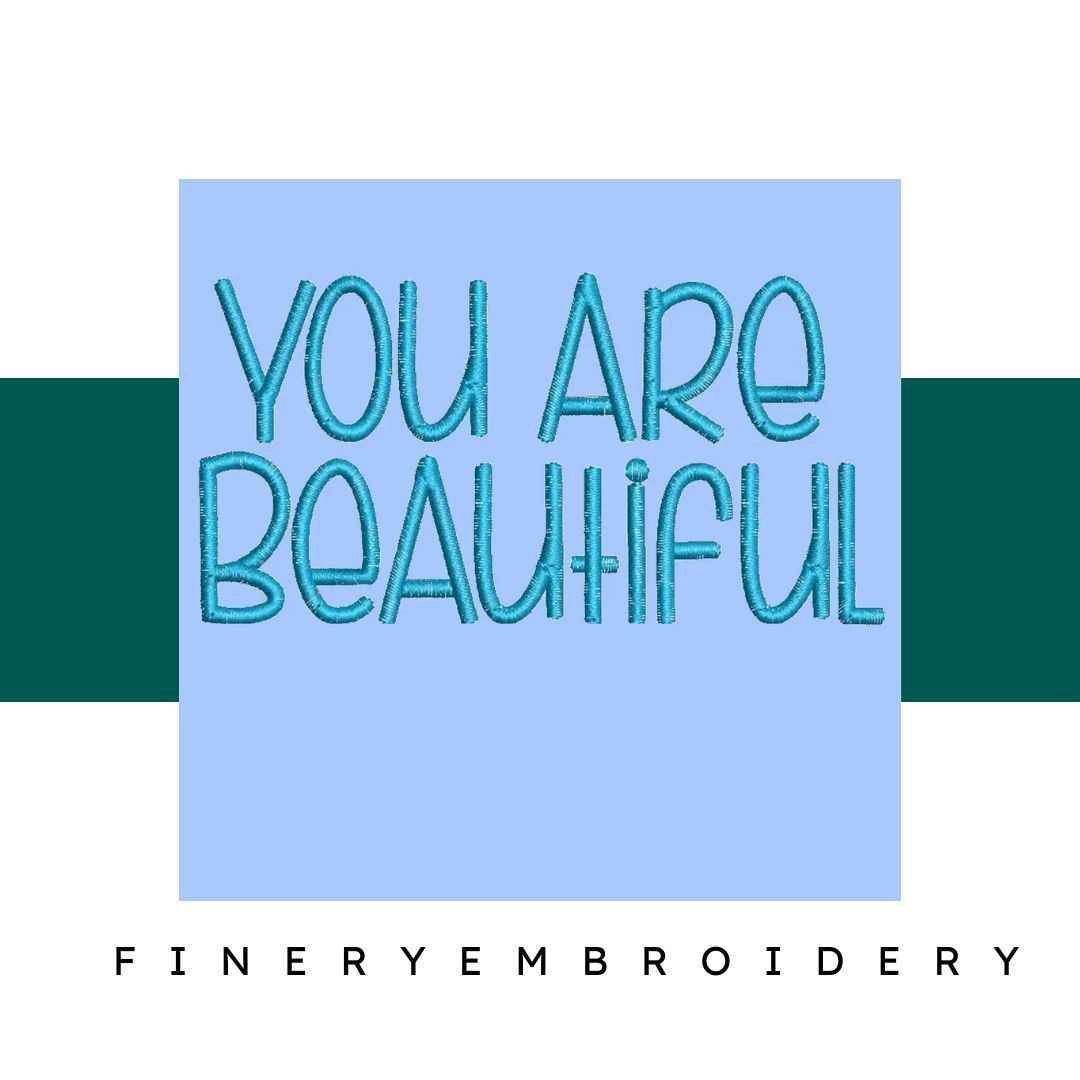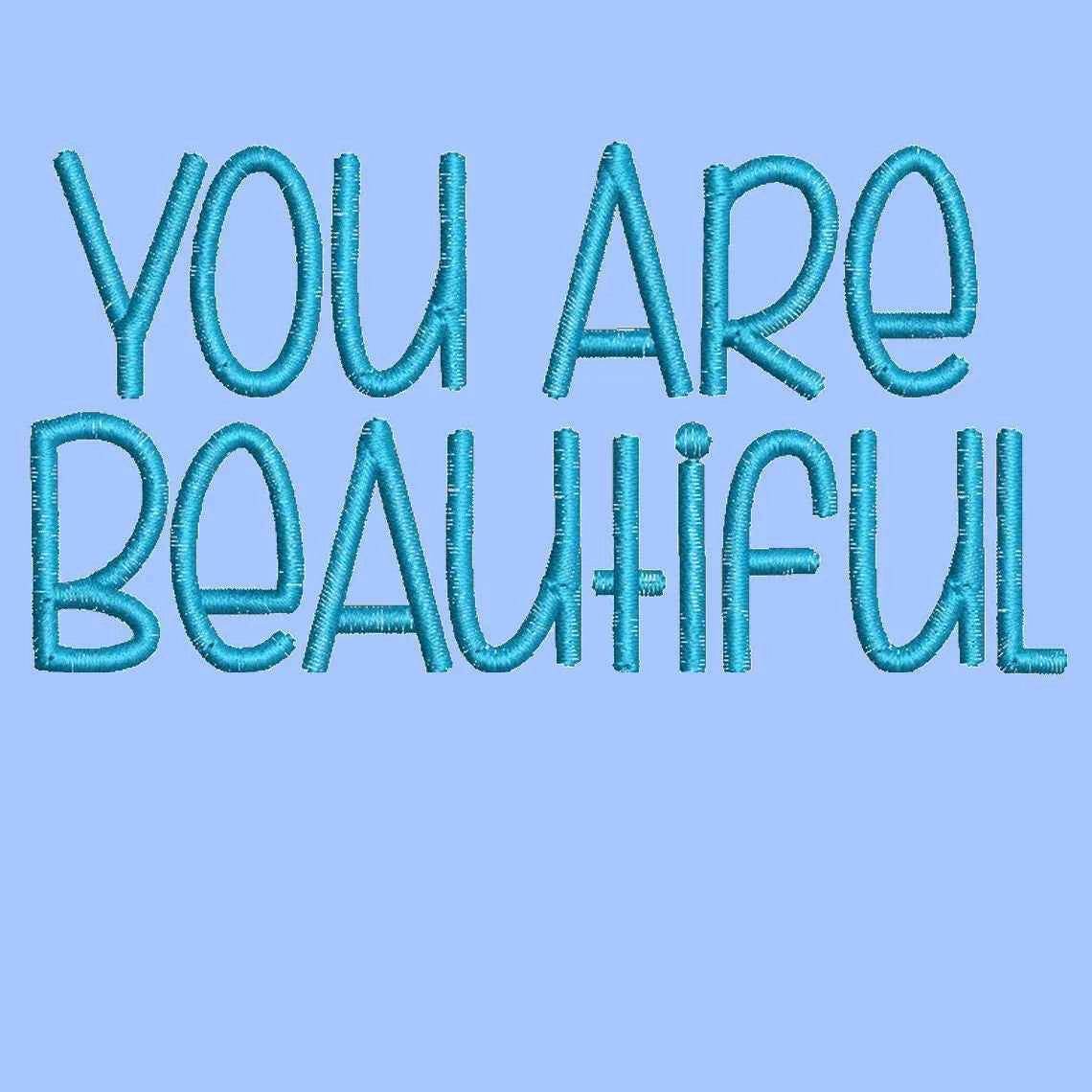
You Are Beautiful Embroidery alphabet Font Set
Transform your creations with elegance using the You Are Beautiful Embroidery Alphabet Font Set – where every letter tells a story of beauty!
Introducing the You Are Beautiful Embroidery Alphabet Font Set! This exquisite collection is designed to elevate your embroidery projects, ensuring that each letter showcases a sophisticated flair. Whether you're personalizing garments, enhancing home decor, or crafting unique gifts, this font set is essential for every embroidery enthusiast looking to add a touch of charm and elegance to their designs.
Why You'll Love This Design
The You Are Beautiful Embroidery Alphabet Font Set features beautifully crafted letters that offer not just elegance but also versatility. Each character is meticulously designed to ensure precision, making your projects visually stunning. With its sophisticated appearance, this font set will transform even the simplest design into a work of art, captivating anyone who sees it.
Creative Applications
Imagine using this alphabet font set to create personalized gifts for loved ones, unique home decor accents, or customized clothing that truly stands out. The possibilities are endless! Whether adorning a cozy throw pillow or personalizing a baby blanket, this font set allows you to express your creativity while adding that special, heartfelt touch to every project.
Digitized for Passionate Embroiderers